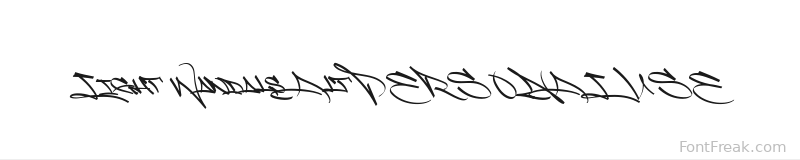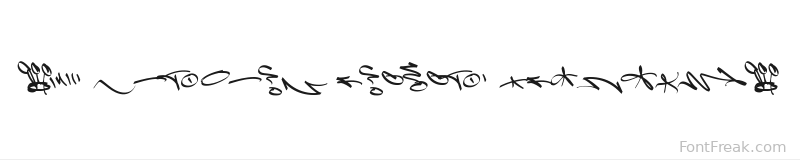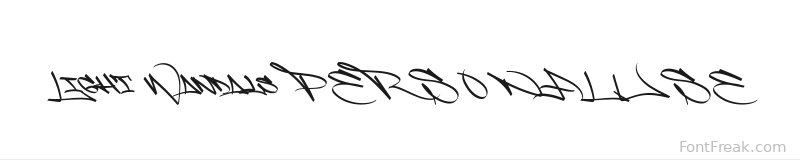
Light Wandals Element PERSONAL
About Light Wandals Element PERSONAL
The Light Wandals Element PERSONAL font by Mans Greback is a unique decorative typeface that brings an artistic flair to any design project. This font, categorized as a display typeface, features whimsical strokes with a light, airy feel that captures attention without overwhelming the viewer. The stroke weight is consistent and delicate, creating a balanced contrast that enhances its playful aesthetic. The spacing between characters is thoughtfully designed, allowing for easy readability while maintaining a cohesive look. The decorative elements are reminiscent of hand-drawn letters, giving it an organic, approachable feel that can be perfect for various creative applications.
This font is ideal for wedding invitations, where its stylish yet readable design can add a personal touch to the event. It also works wonderfully for movie posters, providing an artistic vibe that can elevate the overall visual impact. Restaurant menus can benefit from its unique character, making the dining experience feel more inviting and special. Additionally, content creators can use the Light Wandals Element PERSONAL font in social media graphics and promotional materials, adding a distinctive style that stands out in crowded feeds.
In conclusion, what sets this font apart is its balance of whimsy and readability, making it suitable for both personal and professional use. Whether you’re crafting a heartfelt invitation or an eye-catching advertisement, this font is sure to leave a lasting impression.